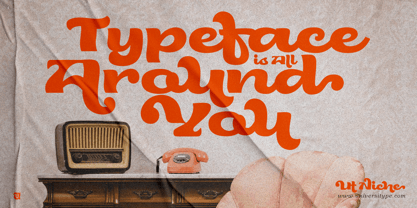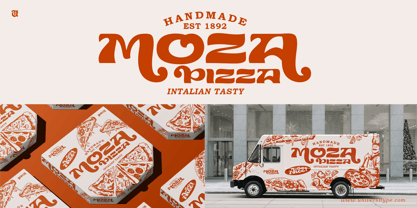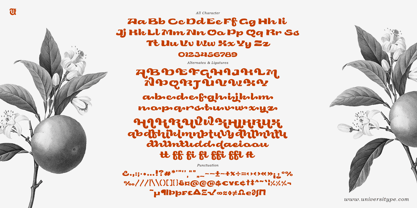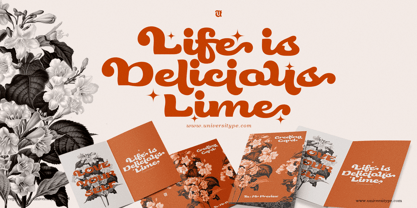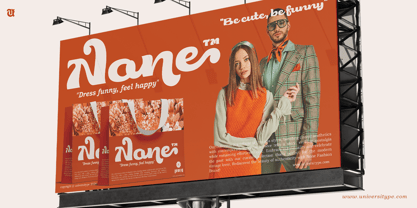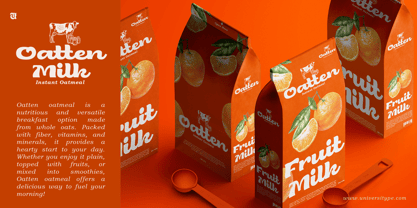
Step into the world of UT Niche, where vintage charm meets modern elegance in one bold, playful script. Inspired by mid-century design elements, UT Niche brings a sense of retro nostalgia to any project, effortlessly blending swirling curves and lively flourishes with contemporary finesse.
Whether you’re designing a logo, crafting a captivating advertisement, or looking to elevate a brand’s identity, this typeface invites you to think outside the box and have fun while doing it.
With 501 glyphs, including an array of stylish alternates and ligatures, UT Niche offers endless creative possibilities. Its bold strokes and swashes infuse personality into each character, making every word stand out with warmth and authenticity.
The soft, rounded edges are reminiscent of vintage greeting cards or advertisements from the golden age of print, yet the clean, modern lines give it the versatility needed for today’s digital age.
Key Features:
Extensive Glyph Collection: Boasting more than 490 unique glyphs, including alternates and ligatures, UT Niche offers designers flexibility and creative freedom. From standard letters to more intricate flourishes, this font allows you to experiment with different styles and looks.
Retro Appeal with a Modern Twist: Inspired by mid-20th century design, this font is ideal for projects that call for a vintage touch, yet its clean, refined forms give it a modern edge that keeps it relevant in contemporary settings.
Bold Swashes and Flourishes: The font’s signature swirls and flourishes inject energy into your design, making it an eye-catching option for headlines, logos, and display text.
Multilingual Support: With a broad character set and accents, this font covers an array of languages, making it perfect for global brands and international projects.
What Makes UT Niche Unique?
Expressive Personality: Unlike more rigid fonts, UT Niche exudes a sense of joy and movement, giving your text a dynamic feel that’s perfect for creative projects with character. Its inviting curves make it approachable and warm, ideal for designs meant to connect emotionally with viewers.
Evokes Nostalgia: While modern in its execution, UT Niche draws heavy inspiration from classic retro aesthetics—think vintage posters, old-school advertisements, and hand-lettered signage. Its nostalgic quality taps into the past, making it a great choice for brands wanting to project authenticity, tradition, or heritage.
Timeless Design: Though rooted in vintage influences, UT Niche feels fresh and versatile enough to be used in a range of contemporary design applications. Whether you’re working on branding for a trendy new startup or creating merchandise for a retro-themed event, this font is the perfect match for timeless design that never goes out of style.
Attention-Grabbing: The font’s bold strokes and decorative swashes make it a focal point in any design. It’s perfect for projects that need to make an impact, such as event posters, logos, or packaging. When you need your text to stand out from the crowd, UT Niche delivers.
What to Design with UT Niche?
UT Niche excels in projects that demand a balance of playful energy and artistic sophistication. Its retro feel makes it a stellar choice for branding projects that want to evoke nostalgia while staying modern. This font thrives in both print and digital applications, from designing packaging for a vintage-inspired product line to creating attention-grabbing advertising campaigns for lifestyle brands.
Use UT Niche in invitations, greeting cards, and social media visuals that need a unique and memorable typeface. Its versatility and range of stylistic features also make it suitable for editorial design, where expressive typography is essential for creating a distinctive voice.
For branding specialists, UT Niche offers the perfect typeface to communicate warmth, trust, and familiarity—qualities that help build strong connections with audiences. For advertisers, its bold and dynamic design ensures that campaigns are impactful and engaging.
Whether for headlines, logos, or product packaging, UT Niche transforms any project into a visual masterpiece, providing just the right blend of nostalgia and modernity to captivate attention.